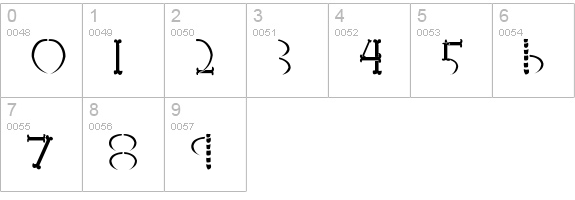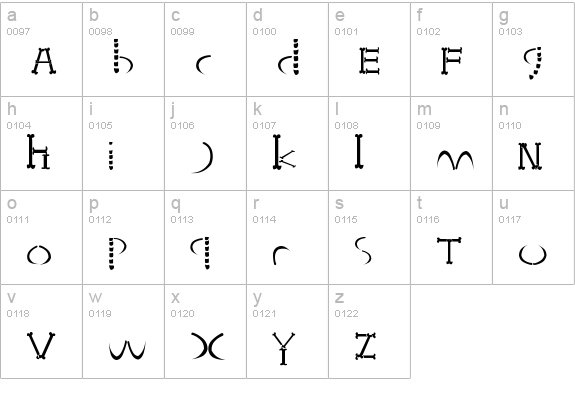
HONEBONE Ukokkei Font Details
HONEBONE Ukokkei font is a beautifully crafted typeface that exudes elegance and sophistication. With its sleek lines and modern design, this font is perfect for a wide range of projects, from branding to packaging to editorial design. The HONEBONE Ukokkei font features unique character shapes that add a touch of individuality to any text. One of the best things about the HONEBONE Ukokkei font is that it is completely free to download. You can get your hands on this stunning typeface at FontsMarket.com, where you can access a wide selection of high-quality fonts for all your design needs. Don't miss out on the opportunity to elevate your projects with the HONEBONE Ukokkei font – download it today and start creating beautiful designs that stand out from the crowd.